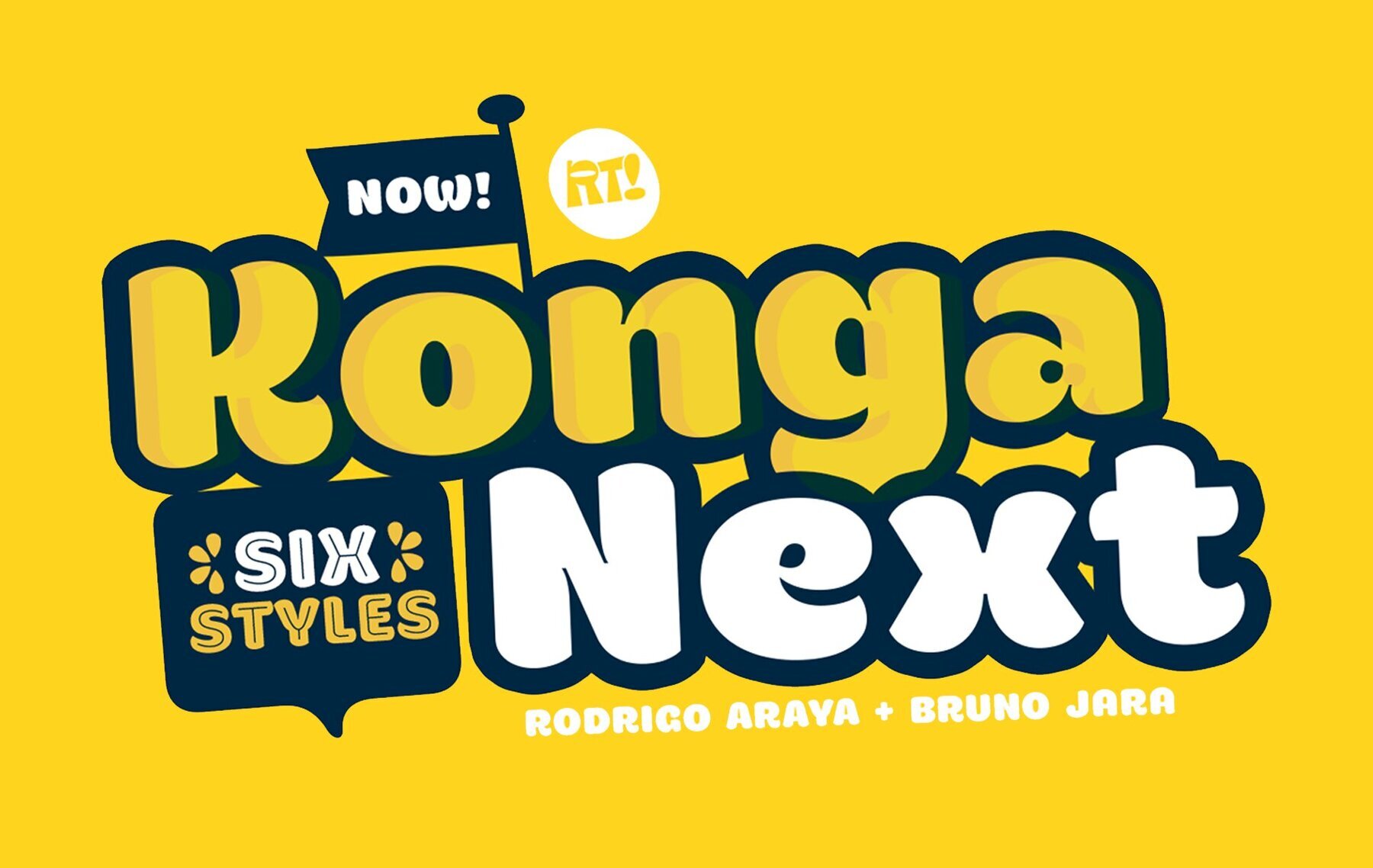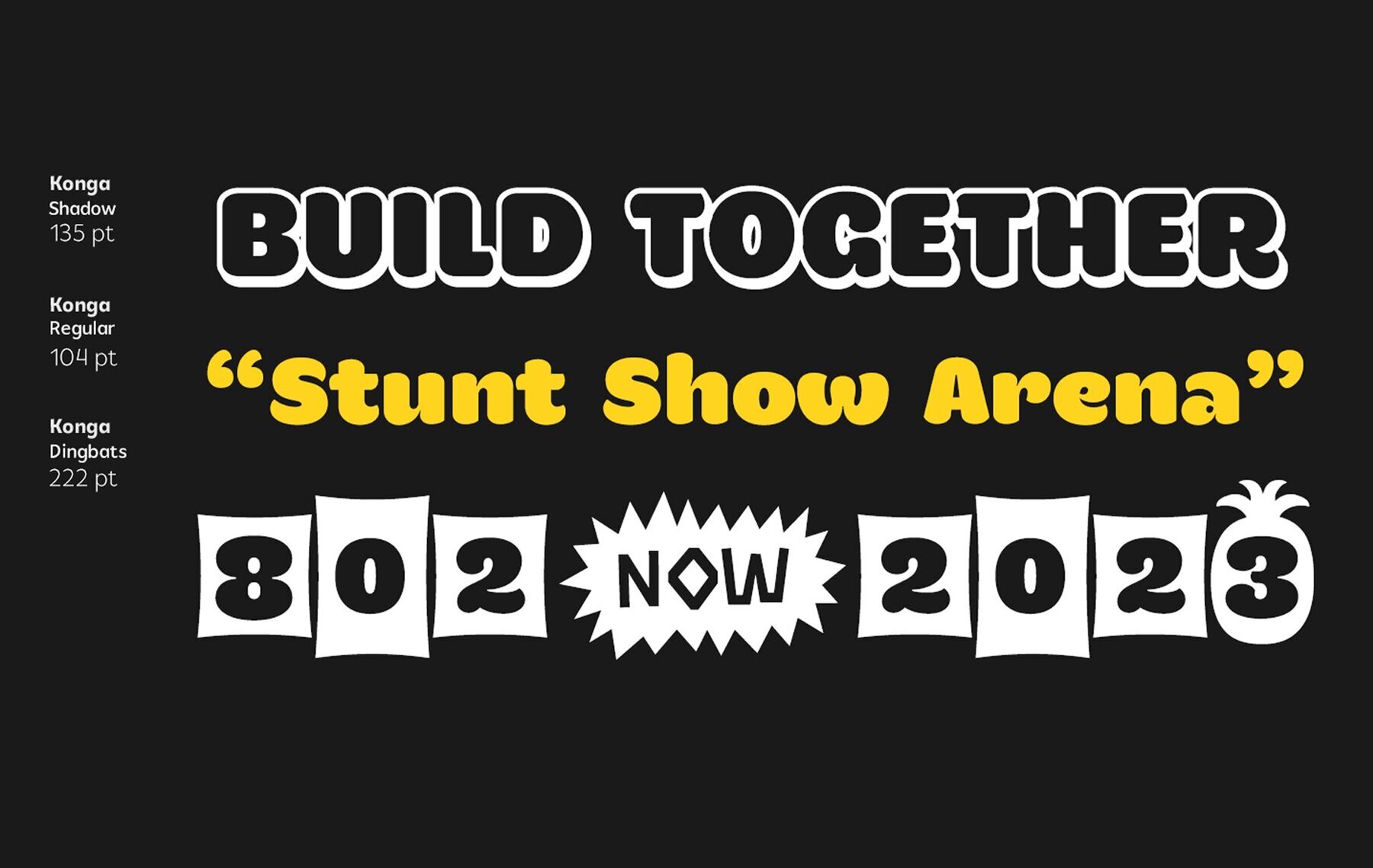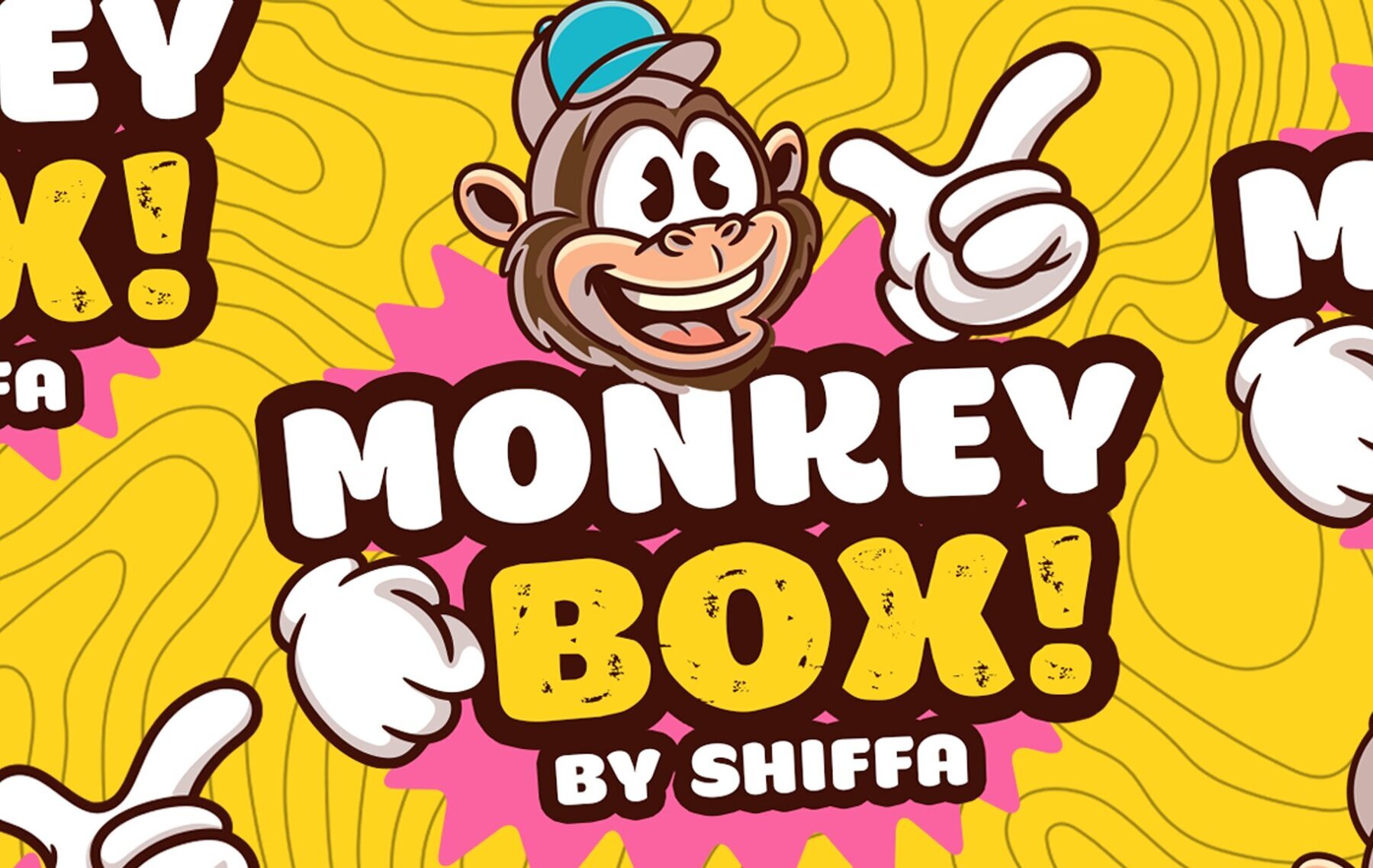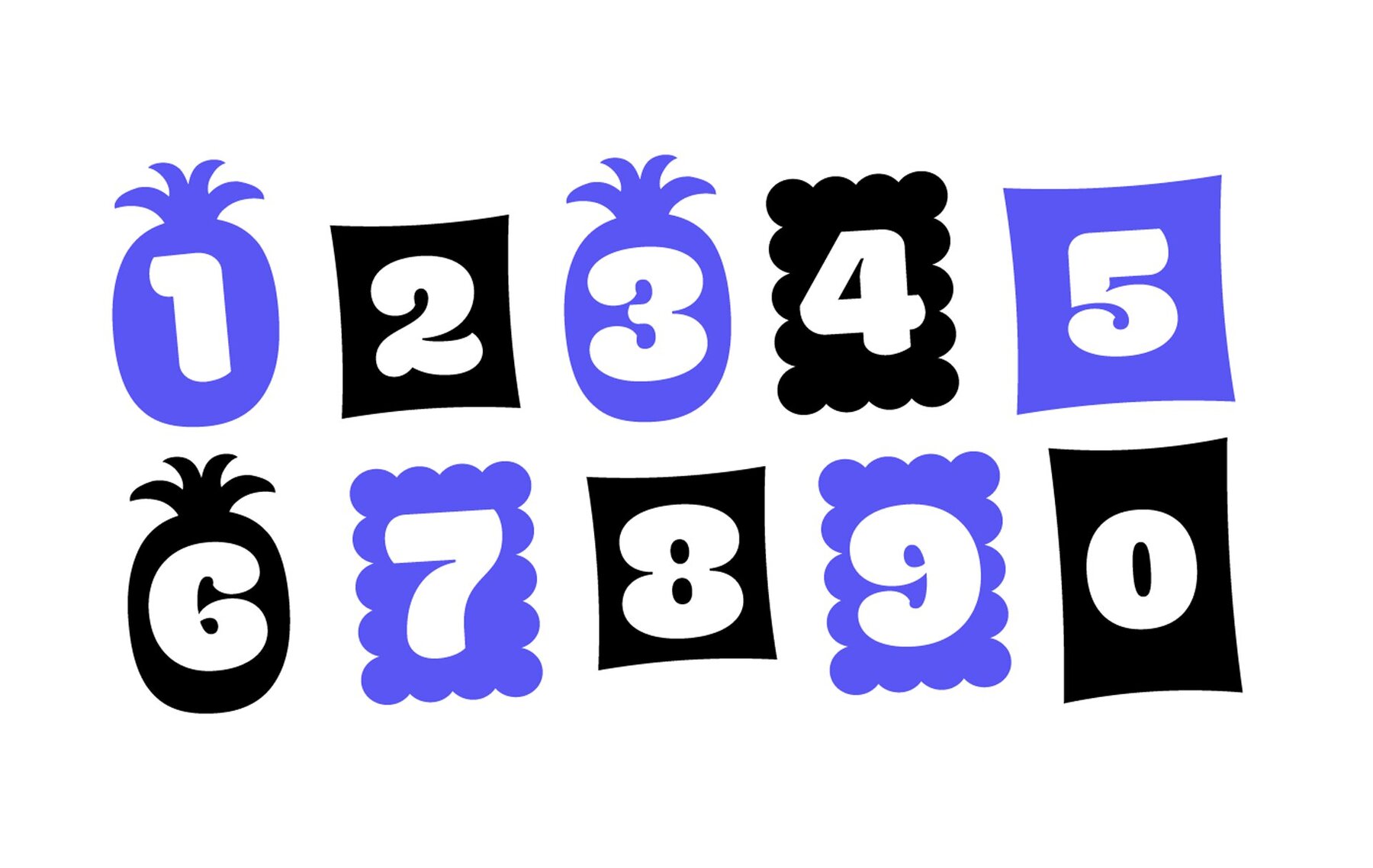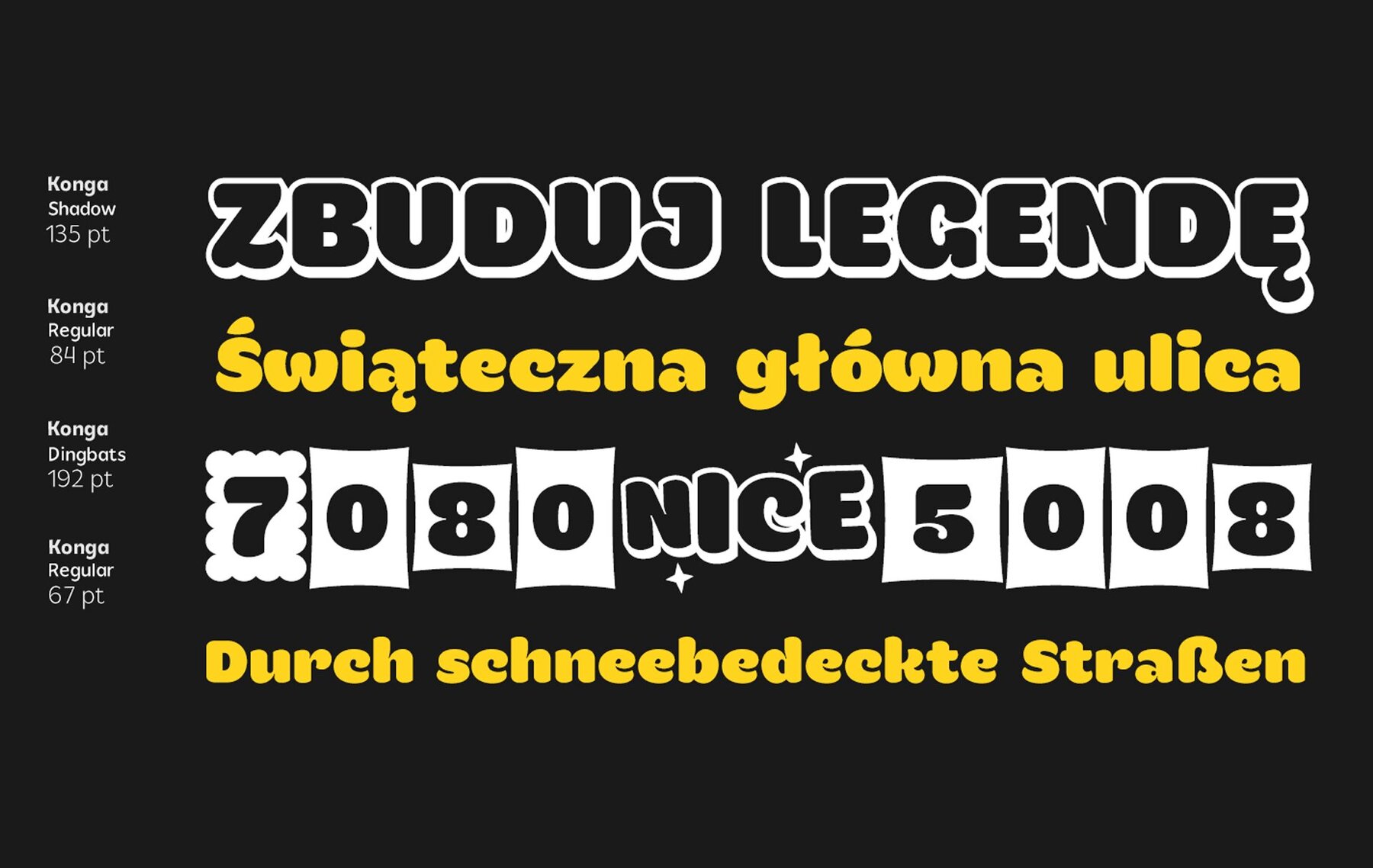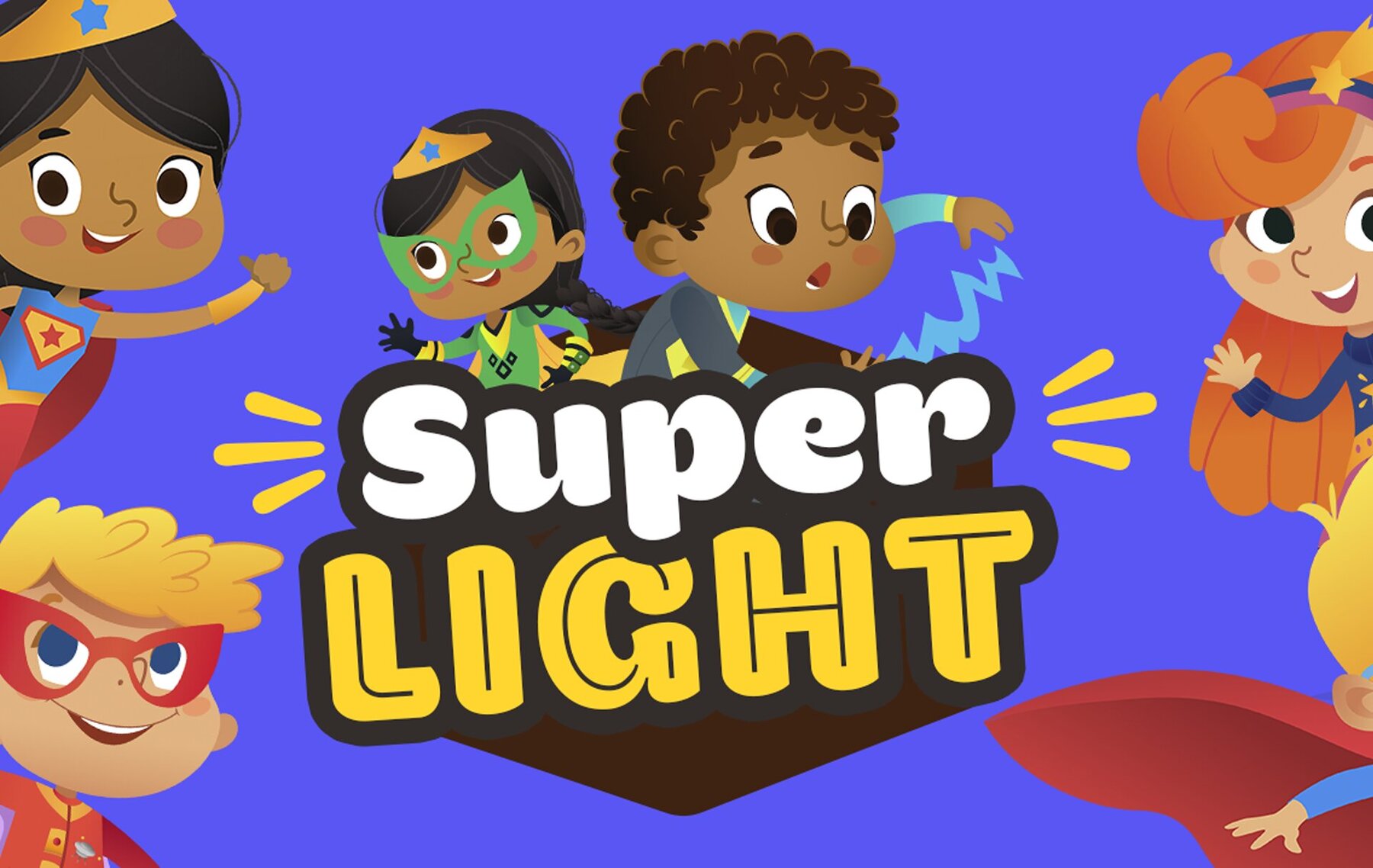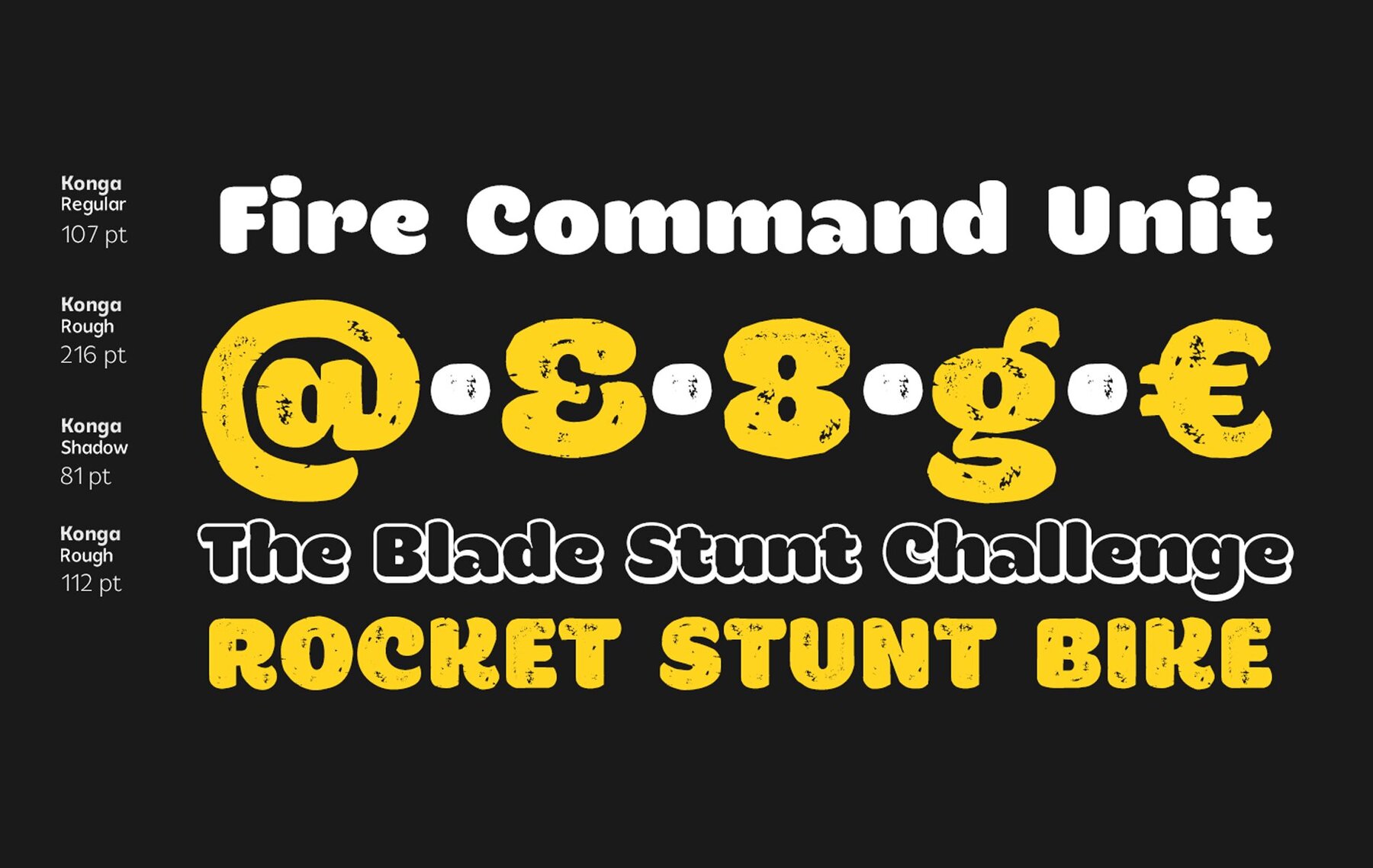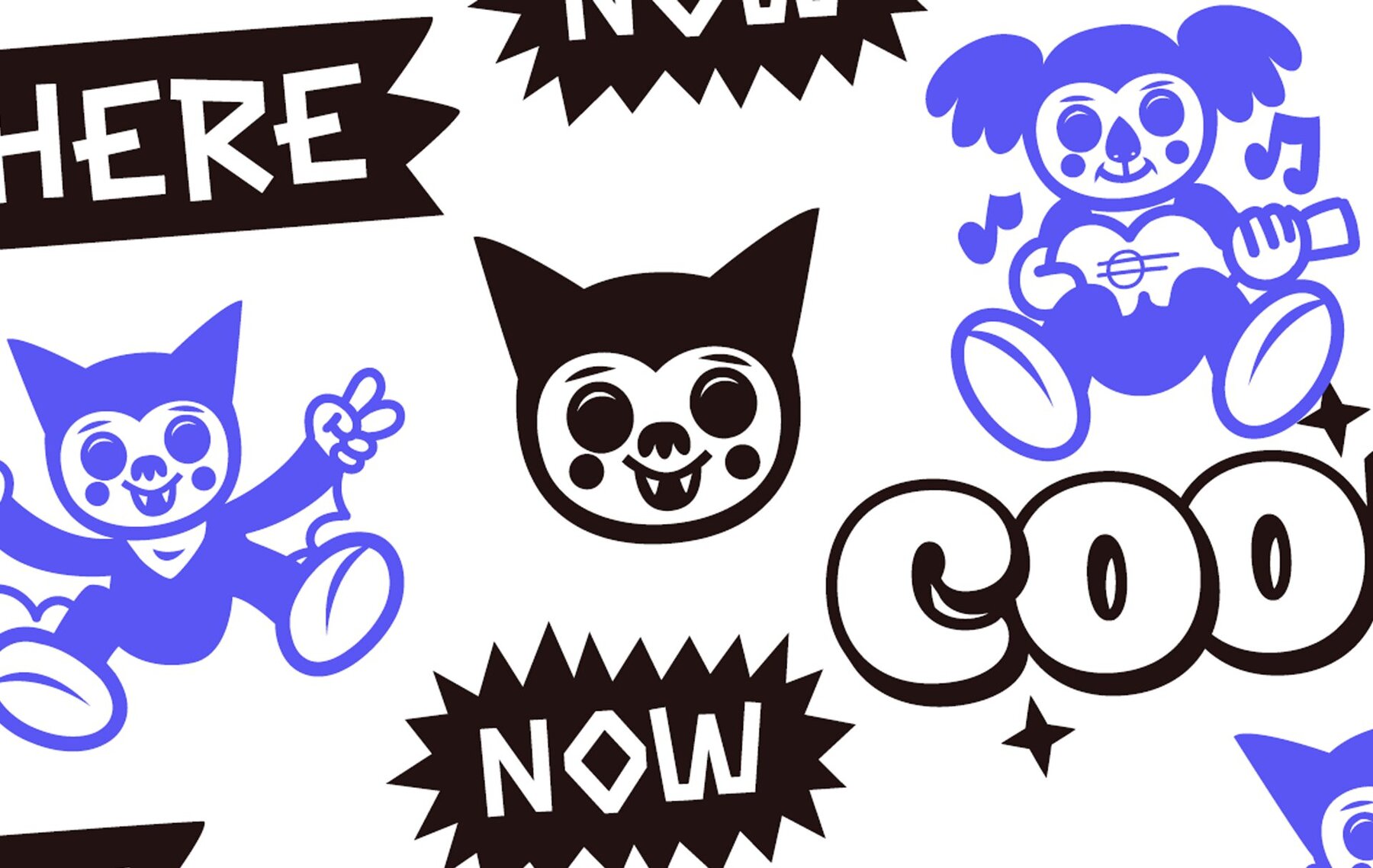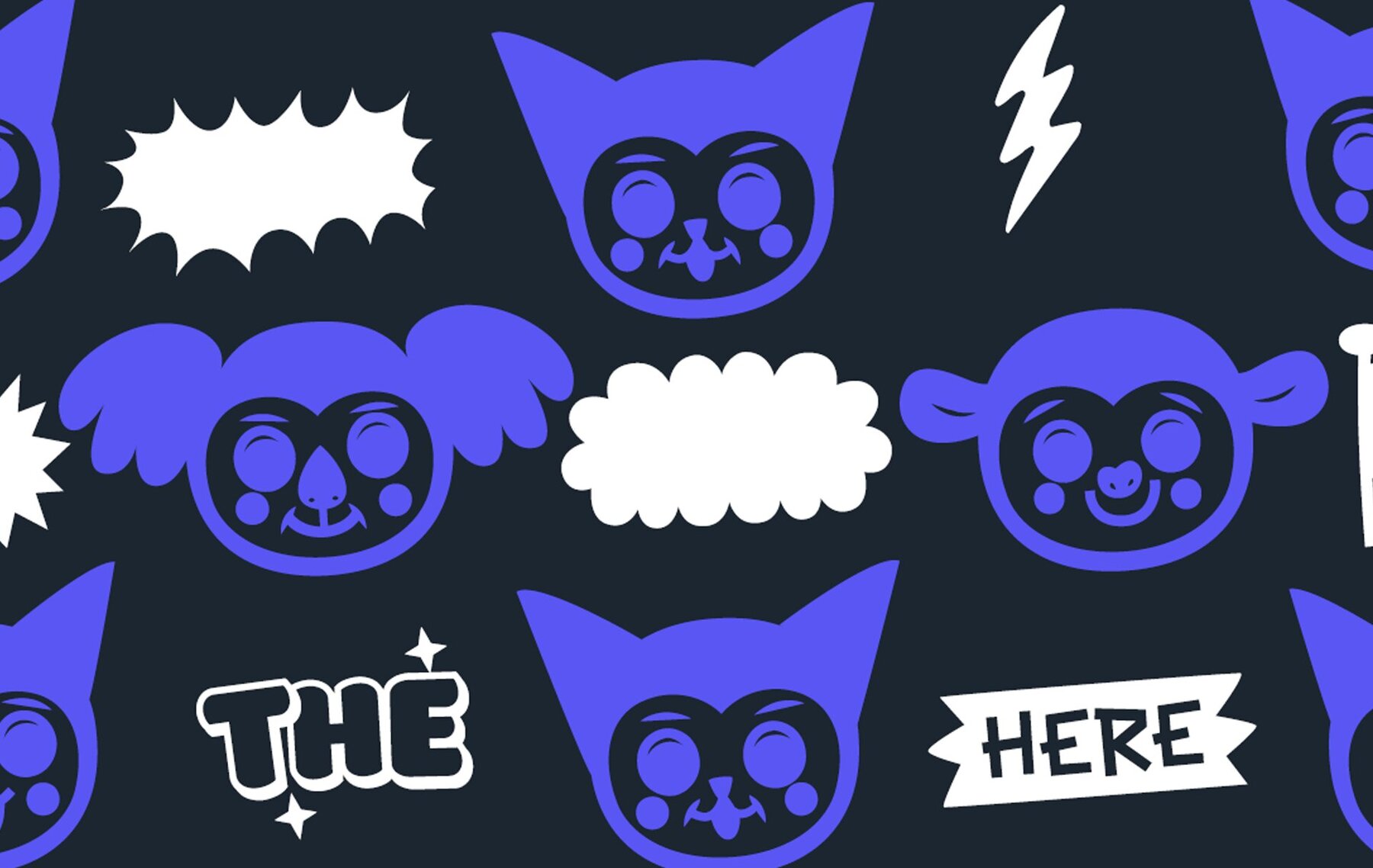
Konga Next Font
Concept: Konga has gone through different changes, the first idea was born in 2014 with the help of Andrey Kudryavtsev, then some time passed and the Rough version was developed, and a long time passed and in 2022 the idea of redesigning was taken with Bruno Jara, in addition to making many styles such as Rough, Inline, Shadow, as well as dingbats which was based on Stefania Ahumada's graphics, which results in a family of 6 styles, with different Alternatives, perfect for informal titles.